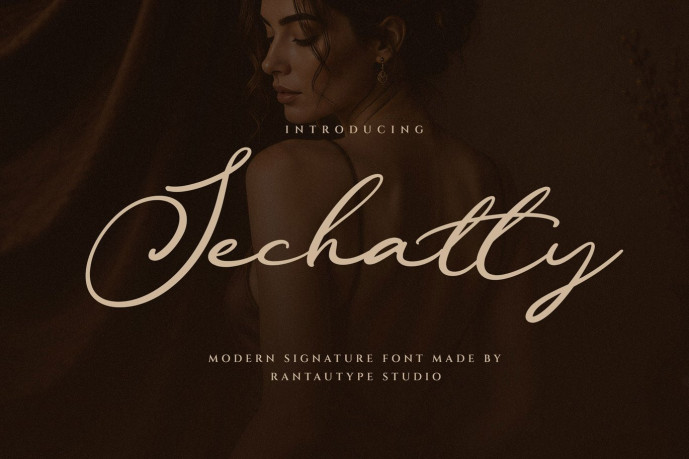
Sechatty Modern Signature Font
Designer: Yudi Pratama Chandra
Sechatty is luxurious modern signature script that perfectly blends timeless calligraphy with contemporary elegance. Designed with smooth monoline strokes and expressive handwritten curves, it delivers a refined appearance that instantly captures attention
Sechatty is a perfectly choice for any creative endeavor, creating, modern, lifestyle design such as logotype, title, cover, branding, invitations, wedding designs, display and magazine, social media posts, advertisements, printed quotes, product packaging, corporate brand, product designs, labels, photography, watermarks, special events and any other project with modern touch.